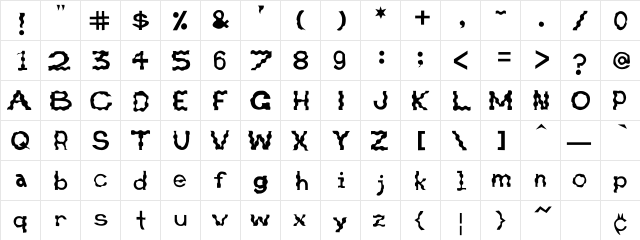
Retardo Bunyons 1
Design Context for Retardo Bunyons Typeface
Retardo Bunyons is a composed and adaptable typeface that performs quietly and consistently across a wide range of design contexts.
Pro Tip: Use Retardo Bunyons in both headline and body roles to test its range before committing to a single application.